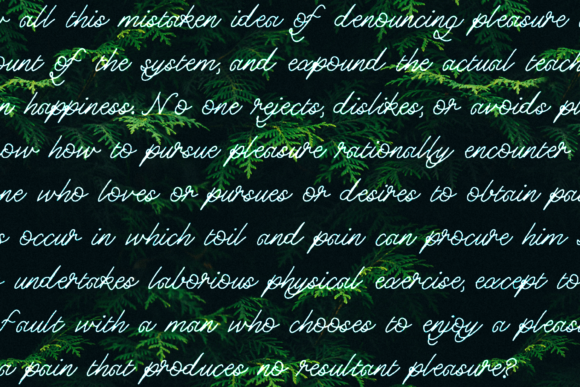
Cordially Invited Font: Elevate Your Designs with Elegance
Cordially Invited is an elegant and beautiful handwritten font that has been making waves in the design community. Its versatility and charm make it an excellent addition to any creative project. In this article, we’ll dive into the world of Cordially Invited Font, exploring its features, uses, and benefits for designers and crafters.
The Beauty of Cordially Invited Font
Cordially Invited is a stunning handwritten font that exudes elegance and sophistication. Its flowing lines and delicate curves make it perfect for designs that require a touch of refinement. Whether you’re working on a wedding invitation, a branding project, or a digital product, this font is sure to impress.
One of the standout features of Cordially Invited Font is its versatility. It can easily be matched to an incredibly large set of projects, making it a valuable addition to any designer’s toolkit. From formal events to casual gatherings, this font adapts seamlessly to any theme or style.
Uses for Cordially Invited Font
So, what can you use Cordially Invited Font for? The possibilities are endless! Here are a few ideas to get you started:
• Wedding Invitations: Add a touch of romance and elegance to your wedding invitations with Cordially Invited Font.
• Branding and Packaging: Use this font to create luxurious branding and packaging for your products.
• Digital Products: Elevate your digital products, such as e-books, printables, and planners, with this beautiful font.
• Party Decorations: Create stunning party decorations, such as banners, garlands, and signs, with Cordially Invited Font.
Cordially Invited Font offers numerous benefits for designers and crafters. Here are a few:
• Ease of Use: This font is easy to read and works well in both digital and print formats.
• Customization: With Cordially Invited Font, you can create unique and personalized designs that reflect your brand or style.
• Time-Saving: This font saves you time and effort, allowing you to focus on other creative aspects of your project.
Tips for Using Cordially Invited Font
To get the most out of Cordially Invited Font, here are a few tips:
• Pair it with Other Fonts: Combine Cordially Invited Font with other fonts to create a unique and visually appealing design.
• Experiment with Colors: Try out different colors and color combinations to find the perfect match for your design.
• Play with Sizes: Experiment with different font sizes to create visual hierarchy and emphasize important elements.
Cordially Invited Font is an elegant and beautiful handwritten font that can elevate your designs and make them stand out. Its versatility, charm, and ease of use make it an excellent addition to any designer’s or crafter’s toolkit. Whether you’re working on a wedding invitation, a branding project, or a digital product, this font is sure to impress. So why wait? Add Cordially Invited Font to your creative arsenal and notice the difference it makes!